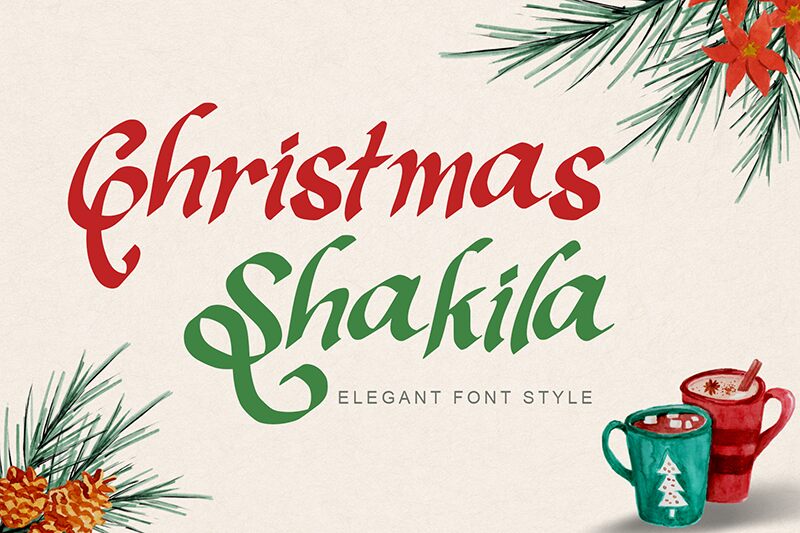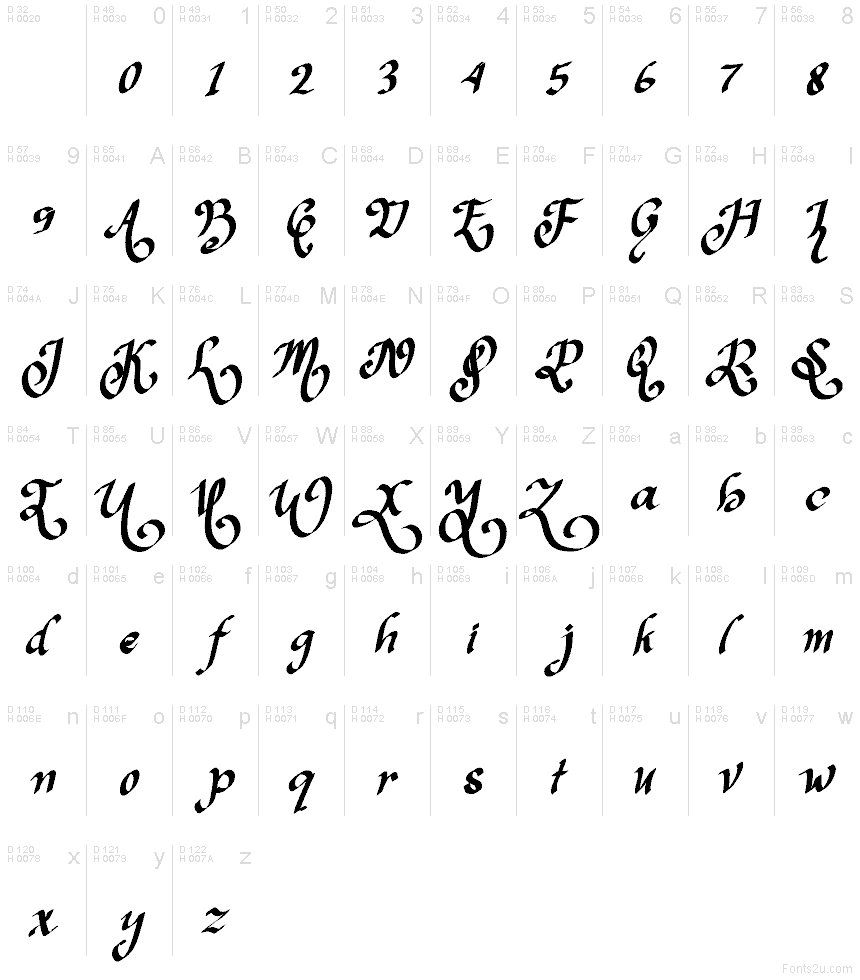
Christmas Shakila - 1
Christmas Shakila - 1 font by Yoga Letter is a free christmas script typeface from the Christmas Shakila family, dripping with that classic, slightly gothic holiday charm. Its inky strokes twist and taper like handwritten calligraphy on old parchment, with sweeping curves that feel both romantic and a little mysterious. The letters stay tightly knit, so phrases read like flowing ribbons—rich, textured, and full of seasonal warmth.
Using Christmas Shakila - 1 font, you can give extra magic to holiday cards, gift tags, party invitations, seasonal logos, packaging, and cozy social media graphics. This free font shines when you let it breathe at larger sizes, where the curves and flourishes can really show. For balance, pair it with a clean, neutral sans serif for body text so the script can handle the festive spotlight.